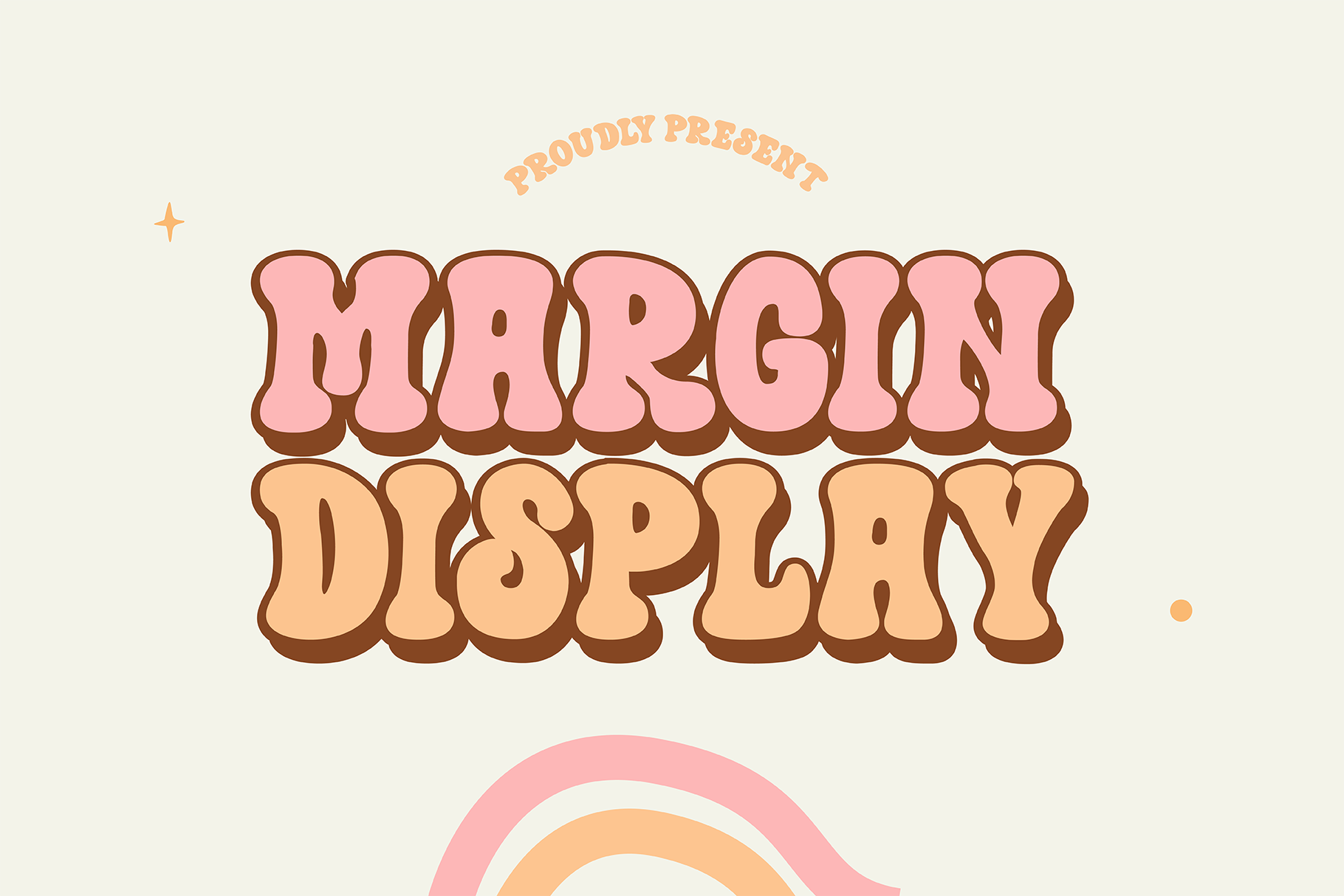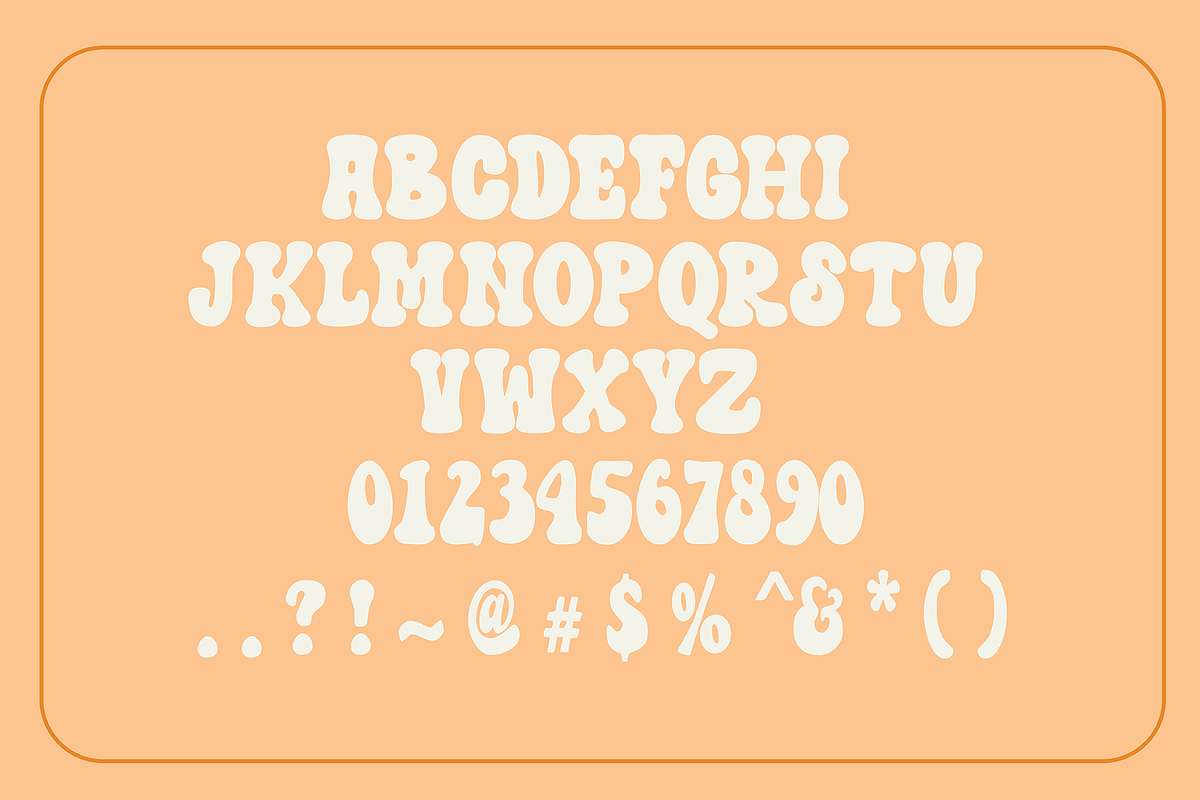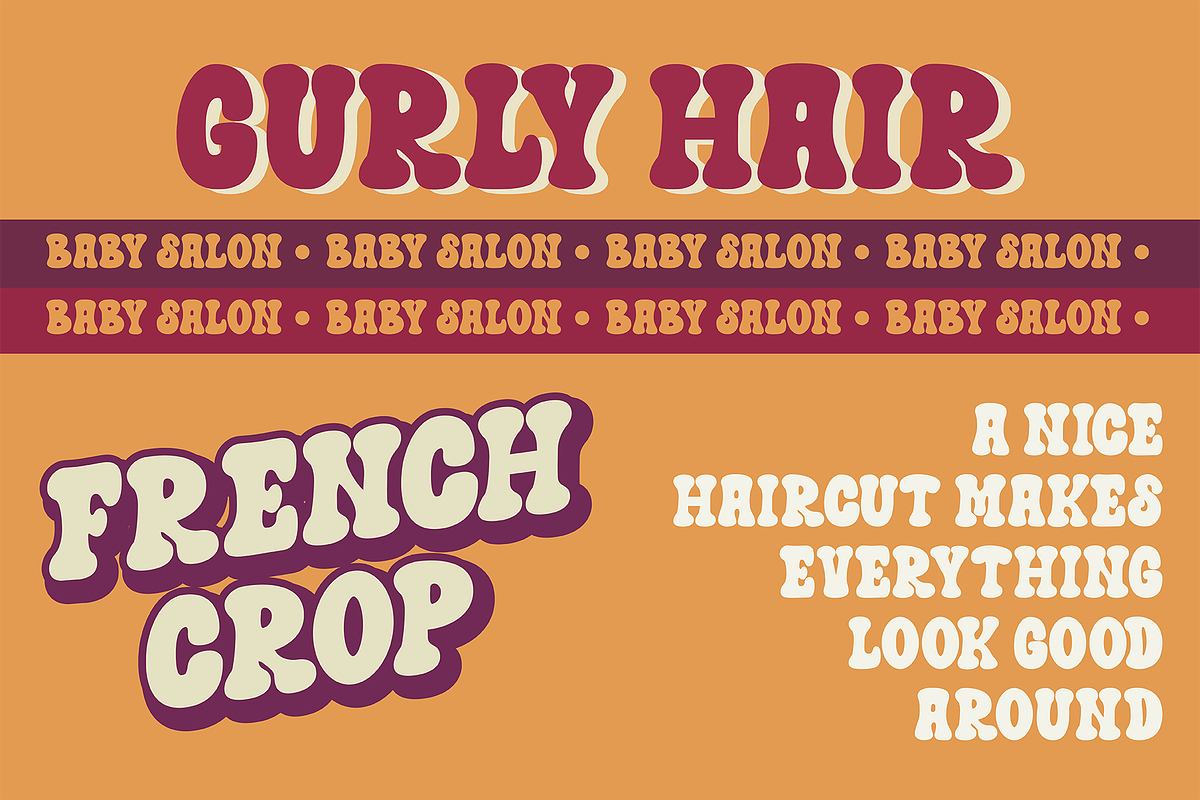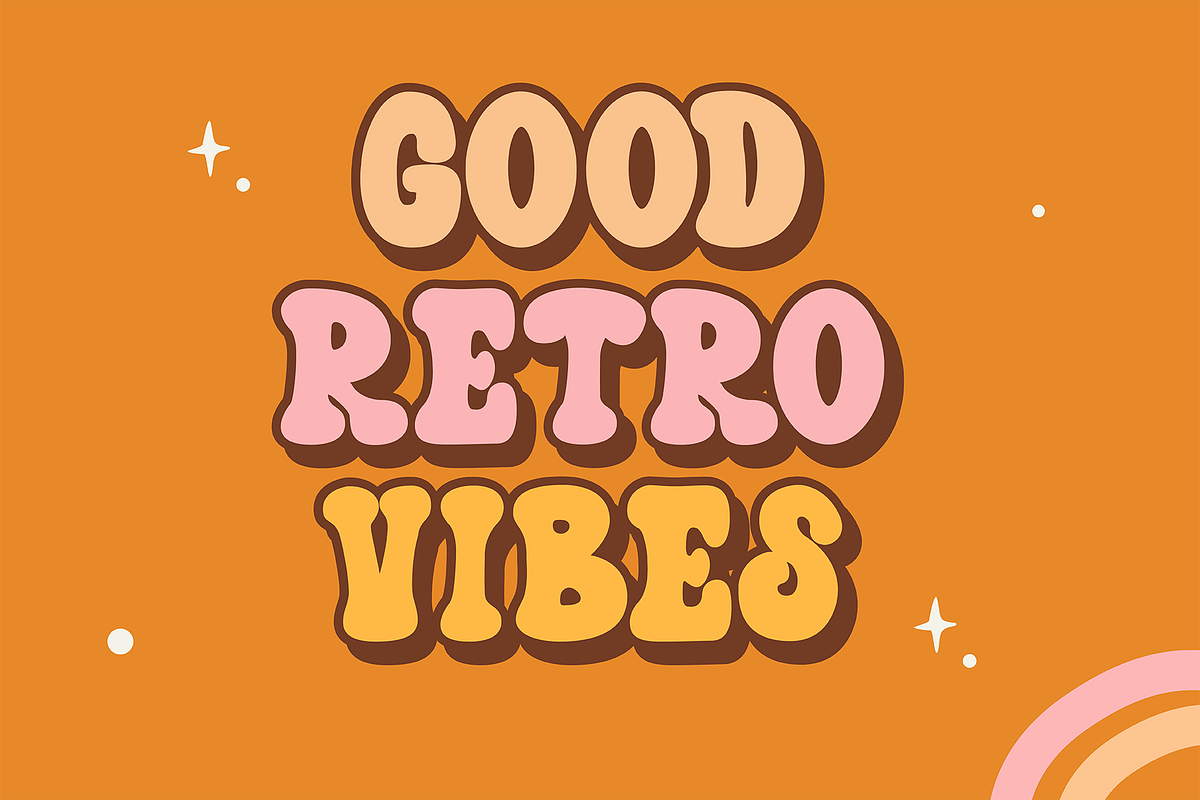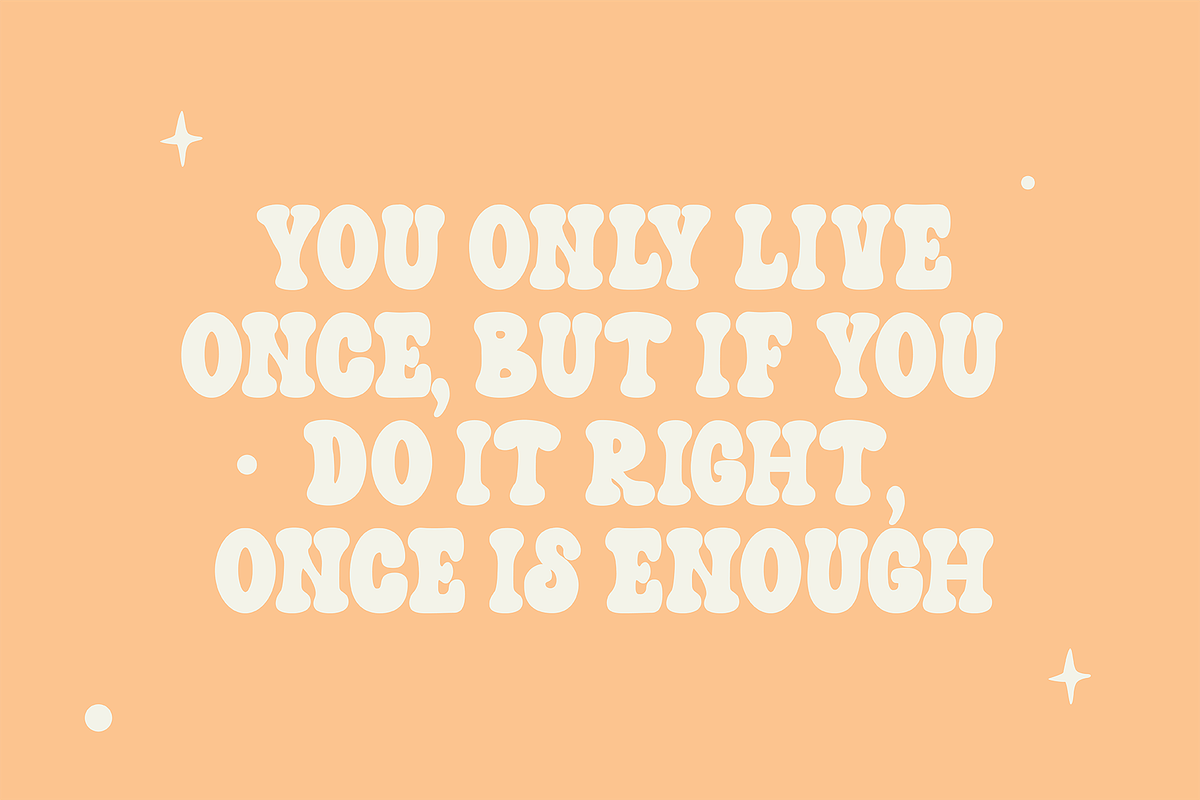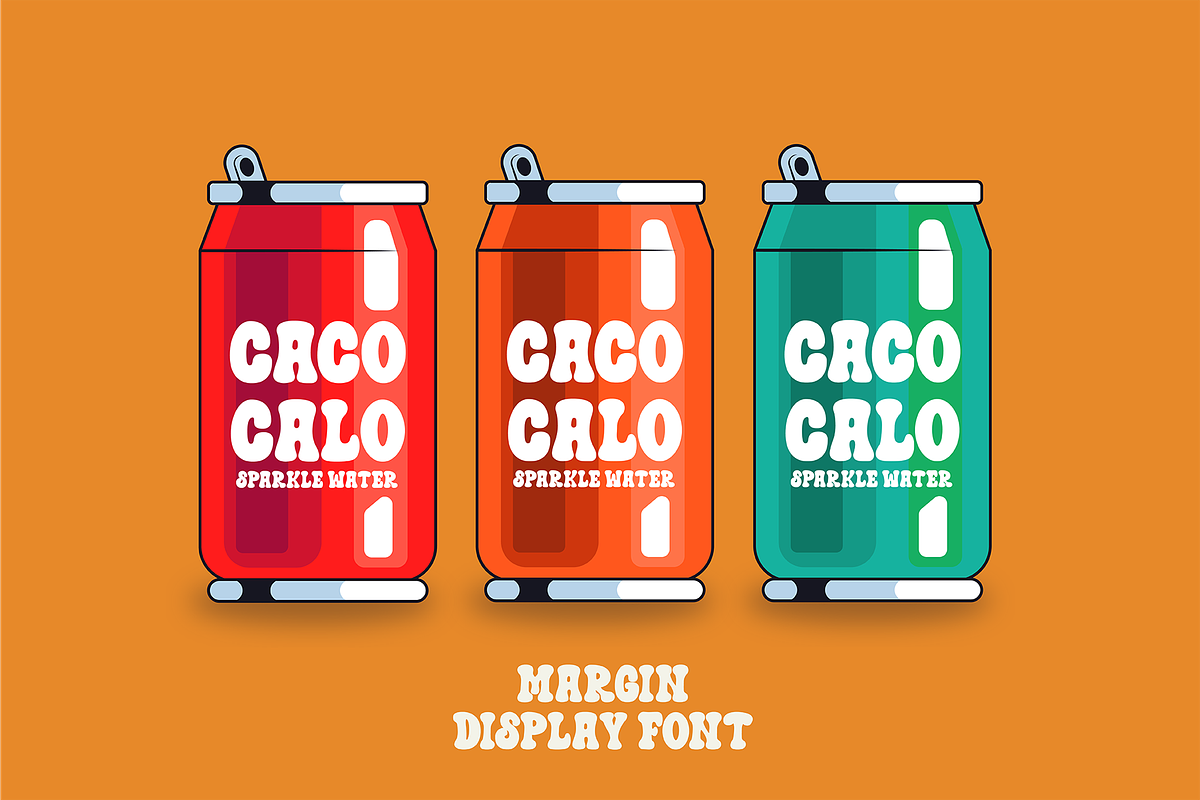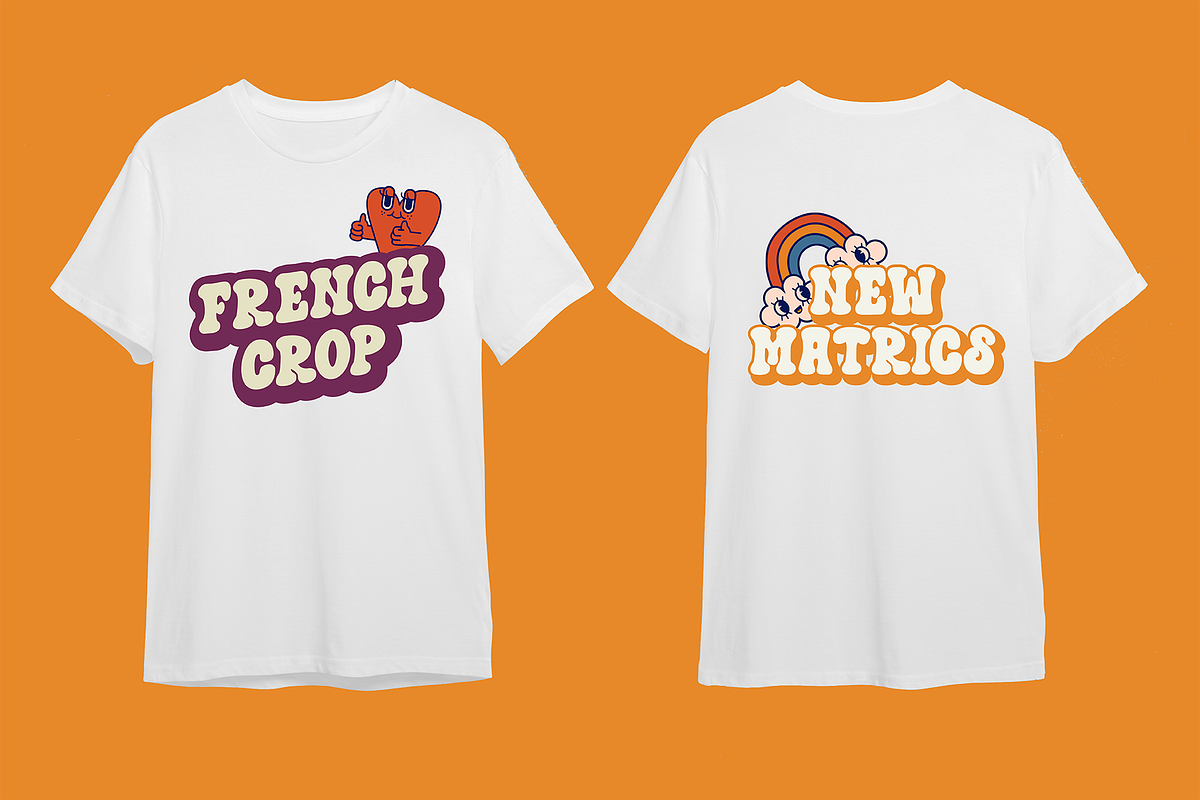
Margin Display Font
Margin Display is a charming retro display font that captures the essence of vintage design. Its playful curves and bold lines evoke a sense of nostalgia, reminiscent of the groovy styles from the past.